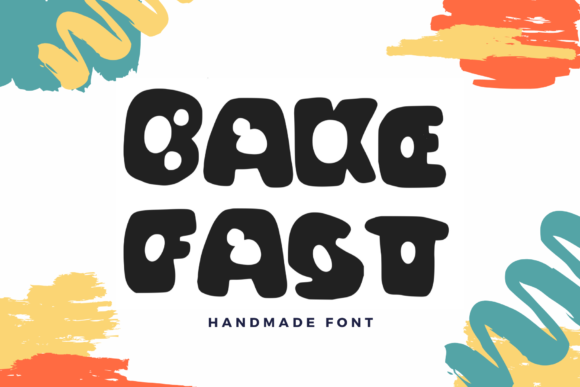
Introducing Bake Fast Font - A Culinary Delight for Your Designs!
Feast your eyes on Bake Fast Font, a charming and playful display font that will ignite your creativity and add a touch of whimsy to your designs. Handcrafted by the talented lunarctic, this font exudes a delightful charm, reminiscent of a child's handwritten letter.
Bake Fast Font's bold and chunky letters dance across the page, evoking a sense of joy and nostalgia. It's the perfect font for adding a personal touch to children's designs, invitations, and any project that calls for a lighthearted and whimsical touch.
Imagine the magic you can create with Bake Fast Font. Design enchanting posters that bring children's stories to life, create eye-catching invitations for birthday parties and baby showers, or add a playful twist to your social media posts. This font will instantly transform your designs into captivating works of art.
Bake Fast Font is more than just a font; it's a gateway to a world of imagination and creativity. Unleash your inner child and let the vibrant energy of this font infuse your designs with a sense of wonder.